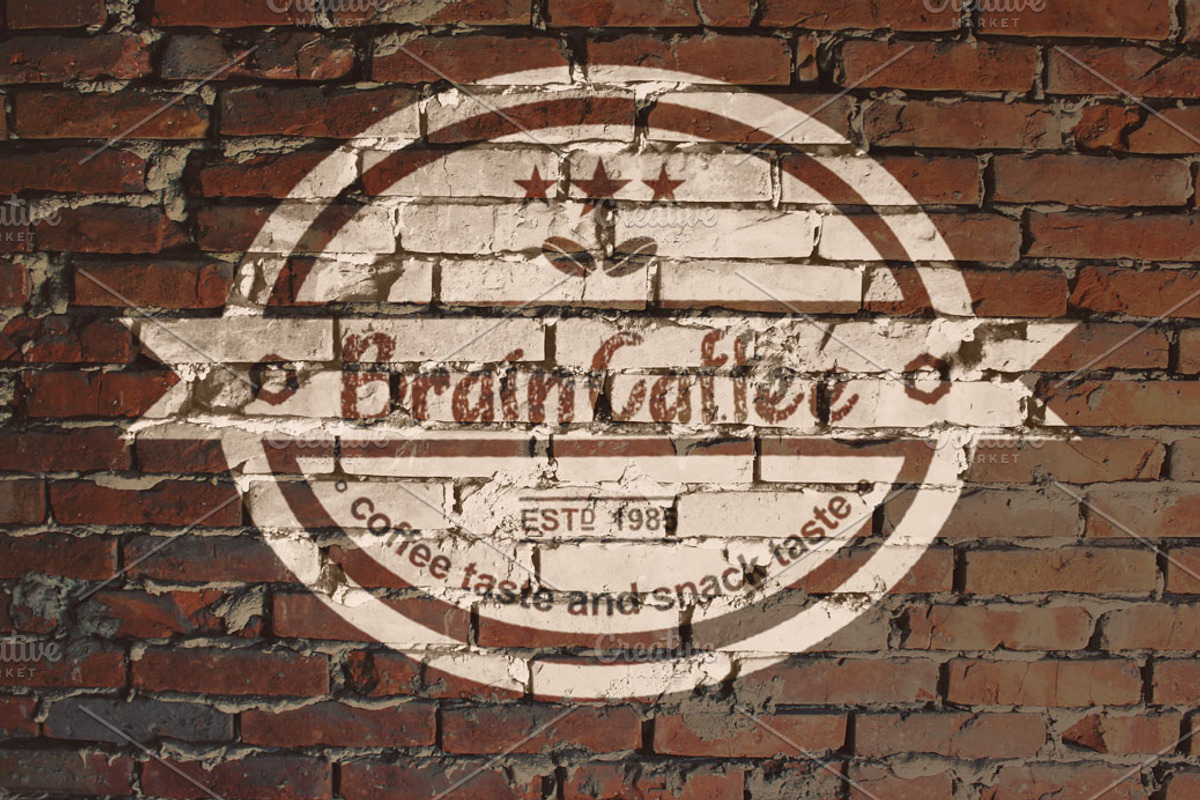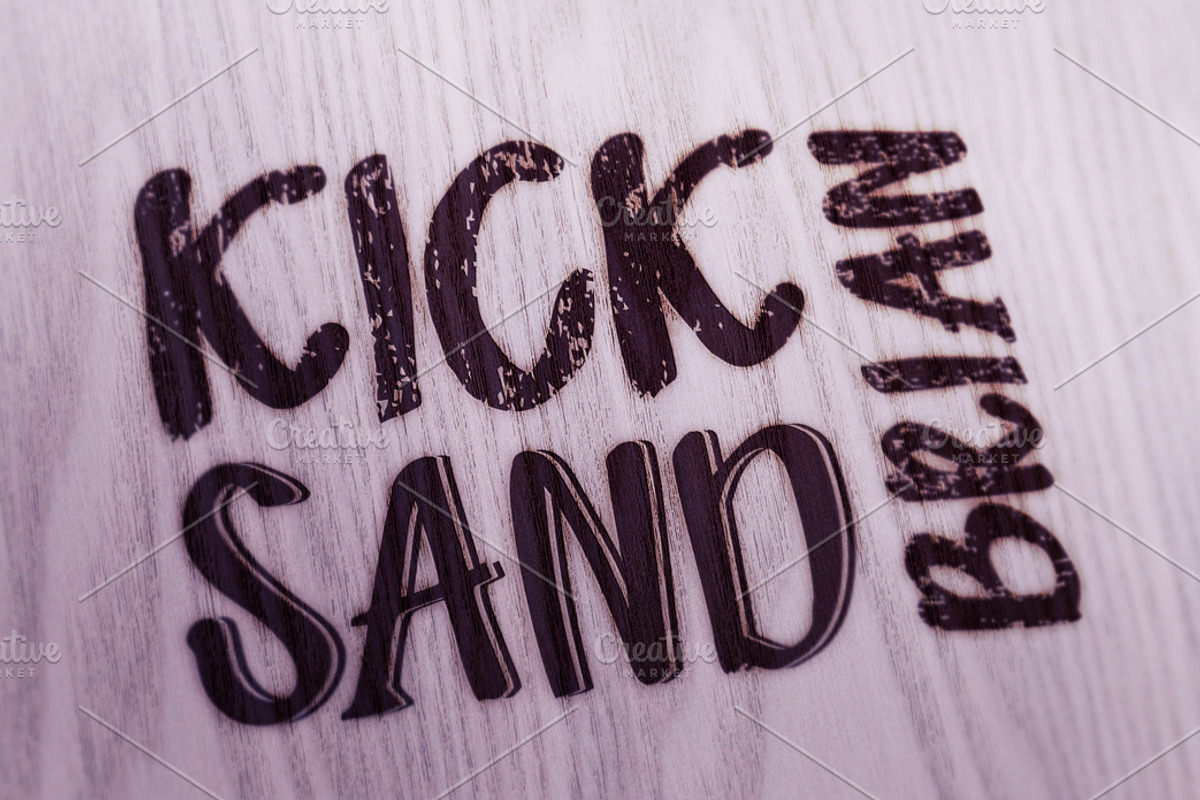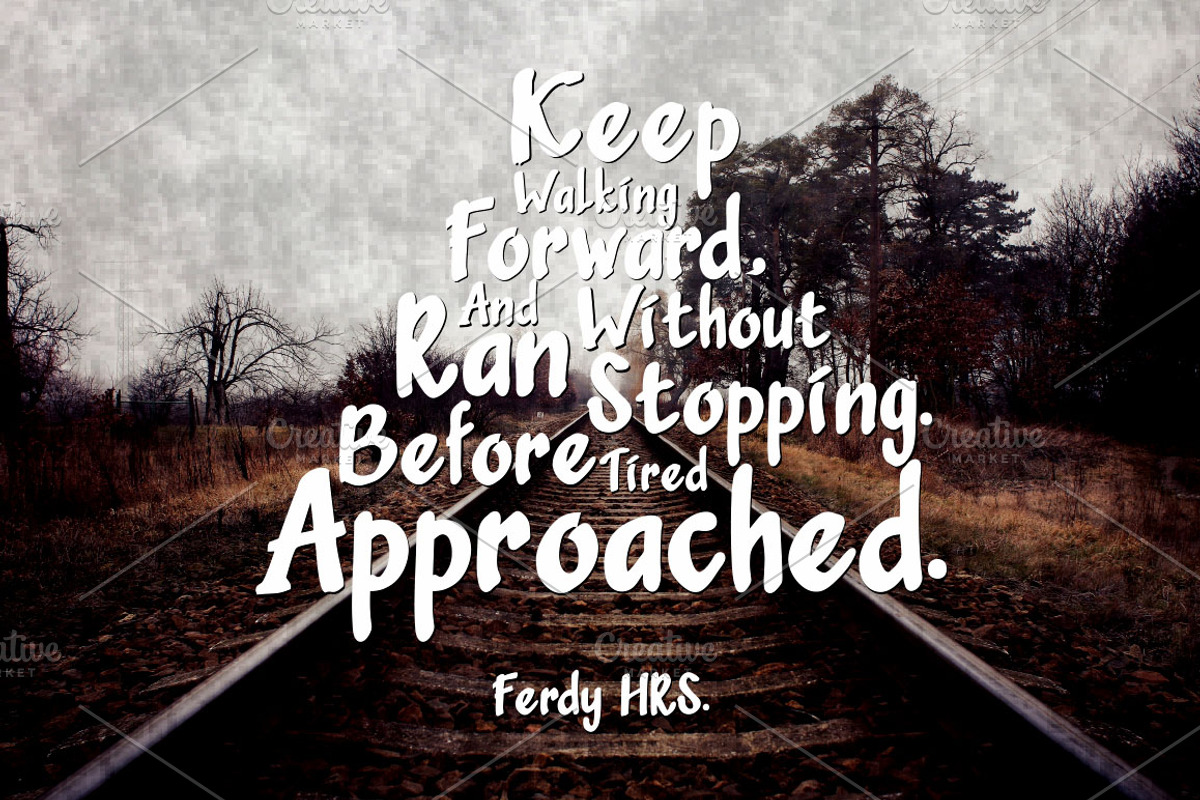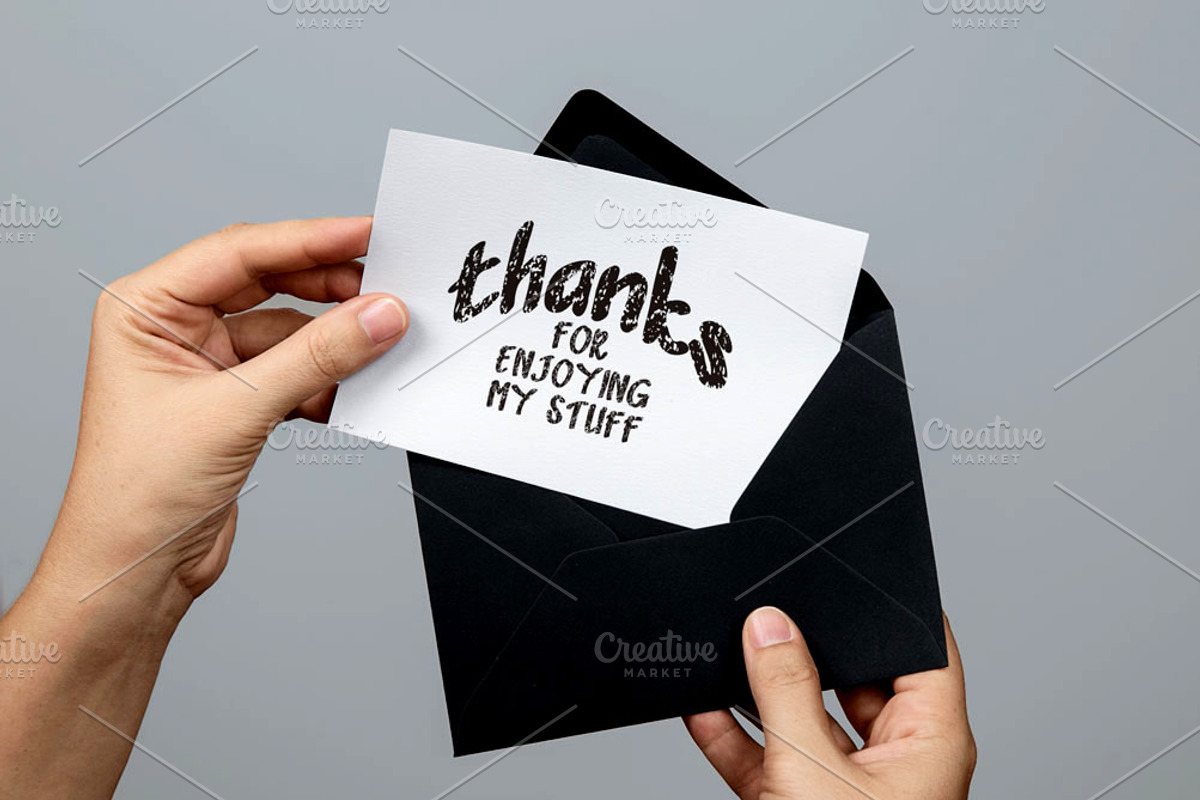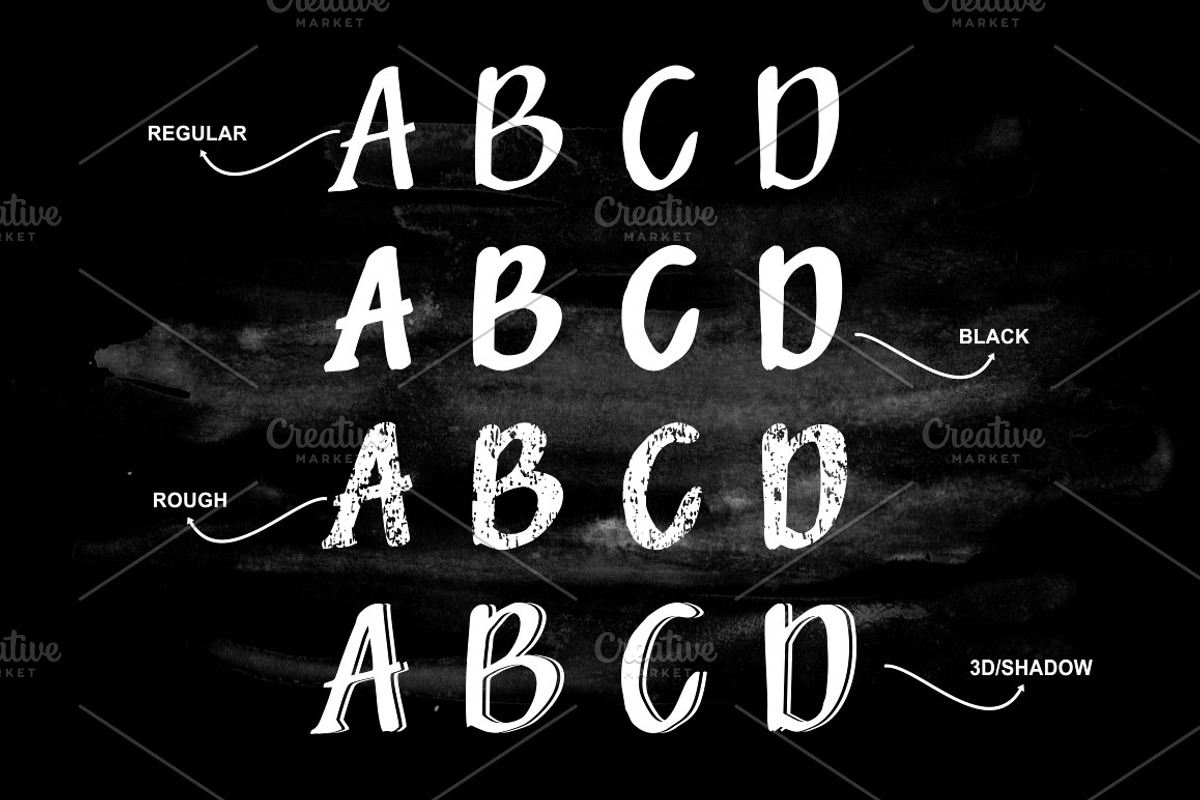
SandBrain - Font Family | 30% OFF by Barland Design is a font selected for branding, posters, packaging, typography.
- Features:
- Standard Character. Stylistic Sets.
- Sandbrain 3D Regular
- Sandbrain Black Regular
- Sandbrain Regular Regular
- Sandbrain Rough Regular
SandBrain - Font Family | 30% OFF by Barland Design fits naturally into Branding, posters, packaging, typography.